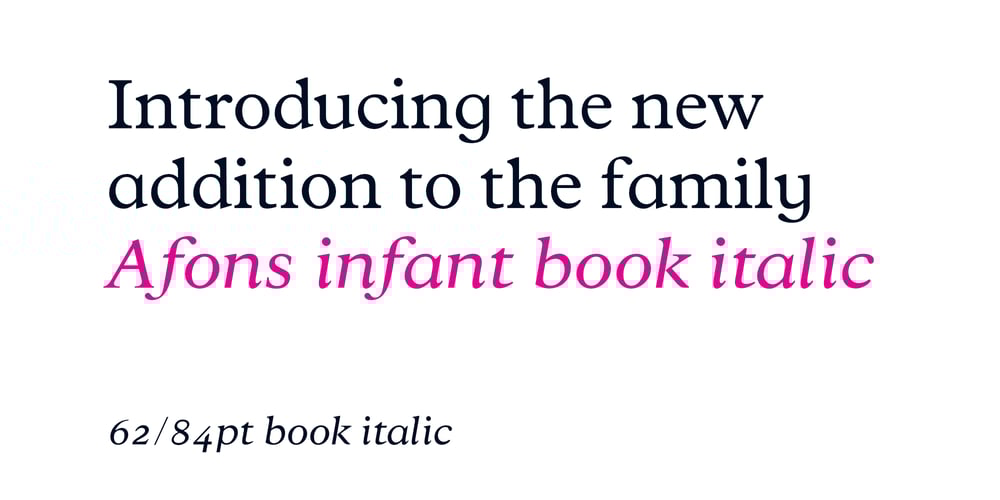
Afons Font Family was designed by Andy Peat and published by Andy Peat. Afons contains 6 styles and family package options. About this font familyAfons Infant has been designed for children’s storybooks; using round, single-decker letter forms to create simple, clear and readable stories that children are familiar.Features6 weights (from thin to bold plus book italic)Multi languageLowercase Numerals to blend with textLigaturesTo be able to access alternative fonts, make sure the software you use can support opentype features such as Microsoft Word, Paint, Adobe, Corel draw and other applications.Designed and published by Andy Peat.Released April 2022Updated 2024